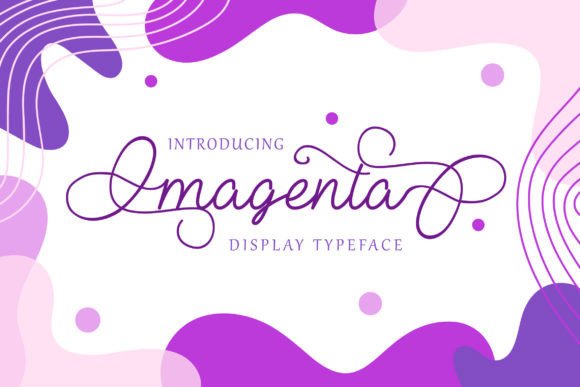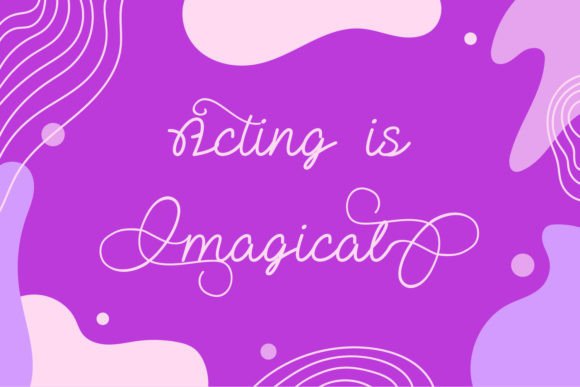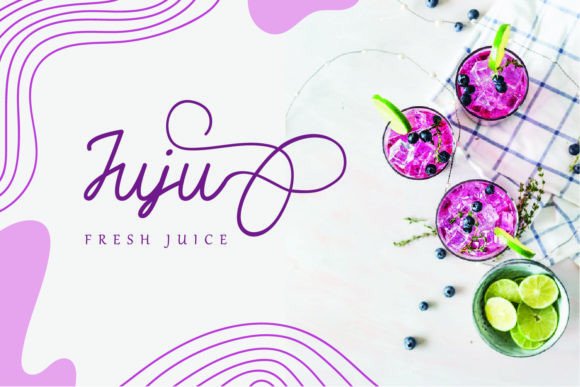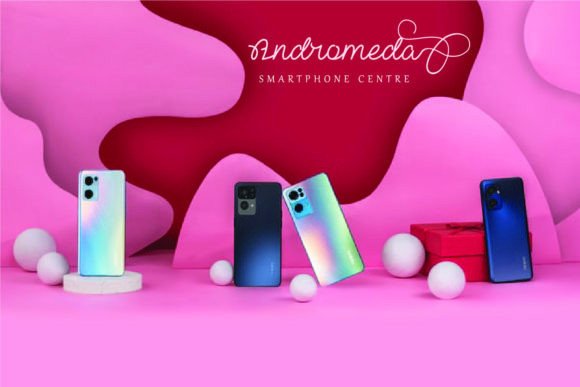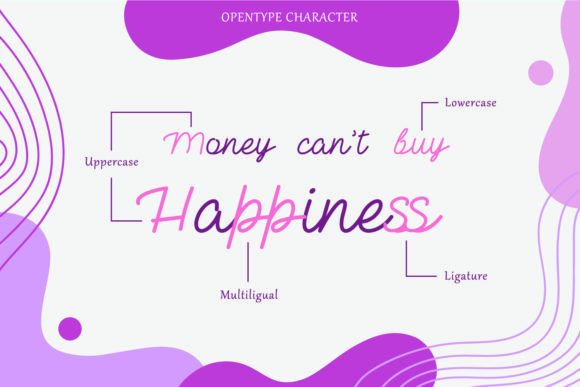
Magenta Font
About Magenta Font
Introducing Magenta, a lovely handwritten font that captures the elegance of calligraphy with a touch of charm. This versatile typeface is a perfect choice for a wide range of creative projects, including invitations, greeting cards, branding materials, business cards, quotes, posters, and more.
Magenta’s handwritten and calligraphic style adds a personal and artistic touch to your text, making it a beautiful option for occasions where a sense of warmth and sophistication is desired. Whether you’re designing invitations for special events, crafting business cards that reflect a personal touch, or creating inspirational quotes and posters, Magenta brings a graceful and captivating aesthetic to your work.
The simplicity and clarity of Magenta make it adaptable to various design contexts. Its versatility allows it to seamlessly integrate into different projects, from formal invitations to casual greeting cards. The font’s ability to convey both elegance and approachability makes it a valuable asset for a variety of creative applications.
As you work with Magenta, you’ll find that its clean lines and graceful strokes contribute to a visually pleasing and readable text. The font’s timeless appeal ensures that it can be used across different platforms, whether in digital designs or print materials.
In essence, Magenta is more than just a font; it’s an elegant and versatile tool that enhances the beauty of your text. Let it be the handwritten and calligraphic element that elevates your designs, making them not only visually appealing but also imbued with a sense of refined style.